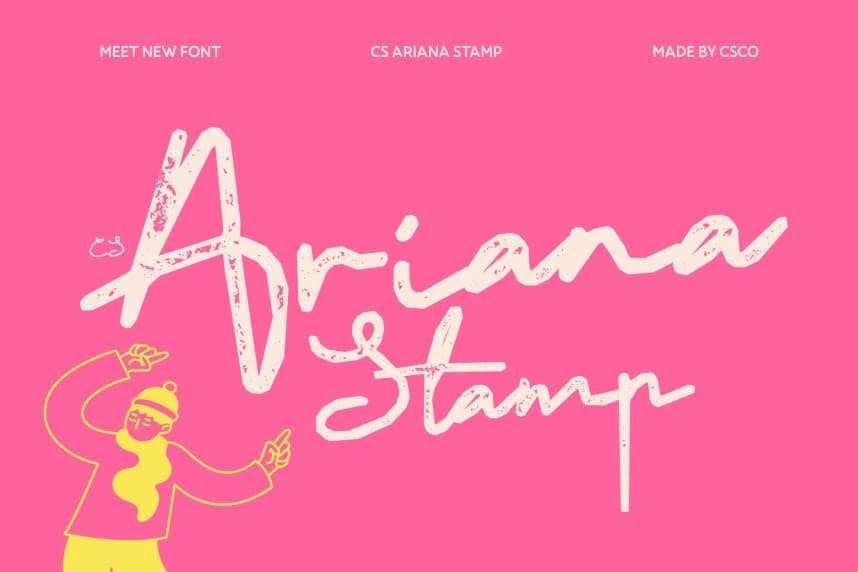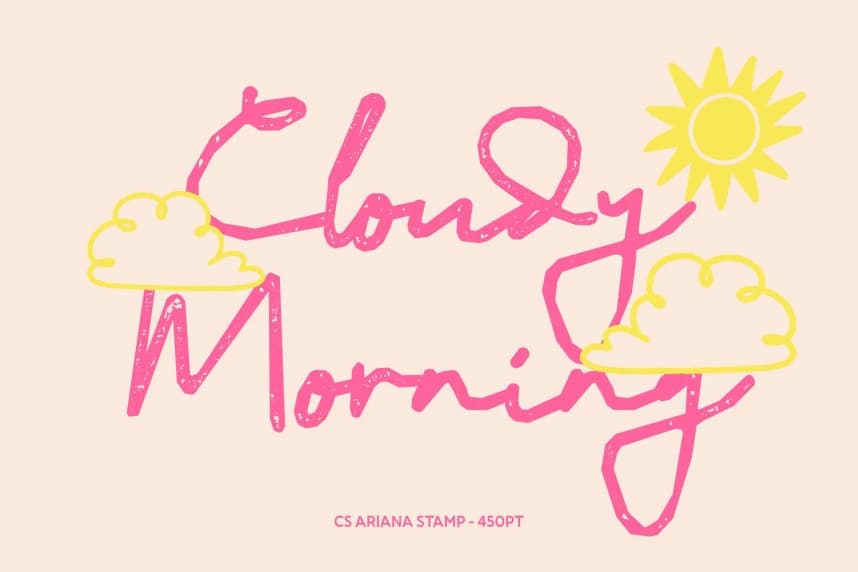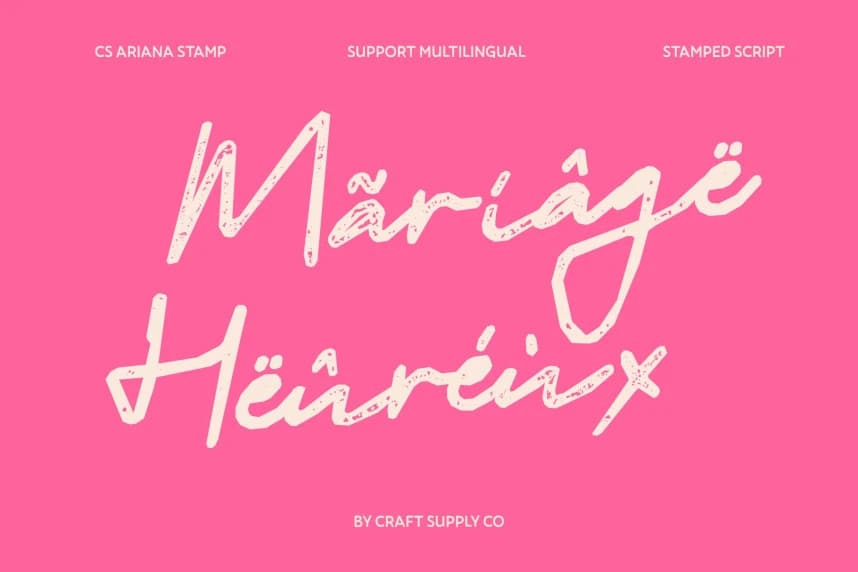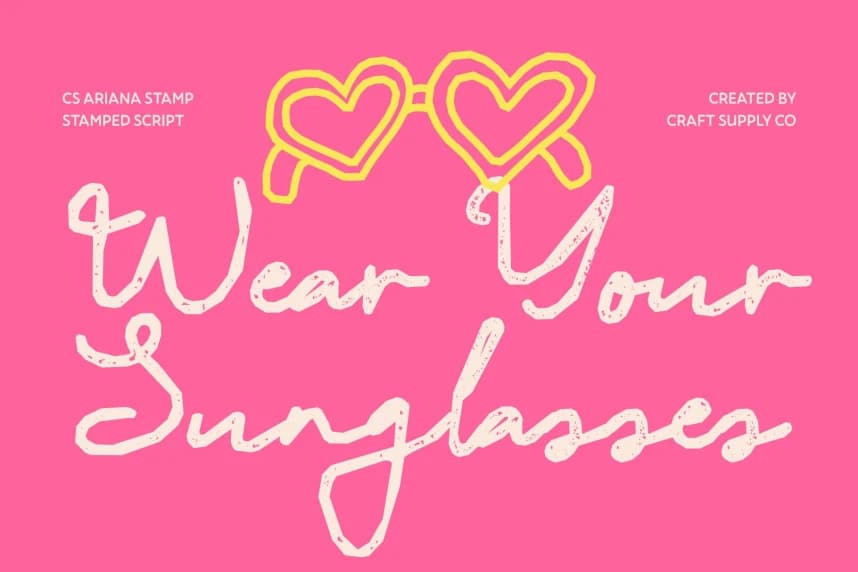
CS Ariana Stamp Font
CS Ariana Stamp Font – Romantic Script with Textured Delicate Beauty Graceful Romance with a Stamped Touch. This font enhances its flowing romantic script with a subtle stamped texture that adds warmth and handcrafted charm.